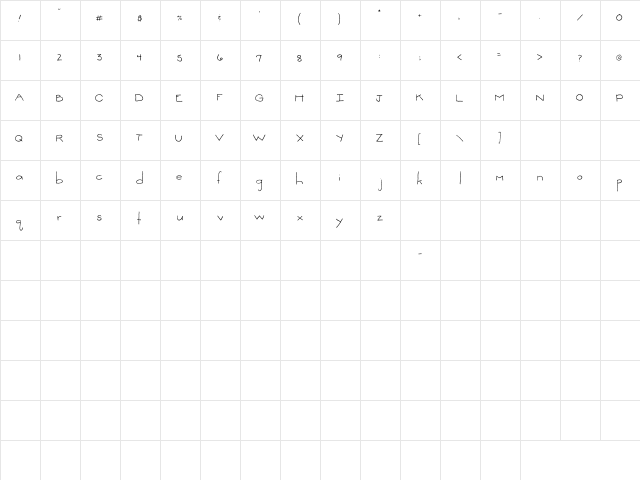
2Peas Just Plain Little 2Peas Just Plain Little Font Preview
2Peas Just Plain Little 2Peas Just Plain Little
2Peas Just Plain Little 2Peas Just Plain Little Font Details
| Style | 2Peas Just Plain Little |
| Foundry | Two Peas in a Bucket |
| Designer | designed by Melissa Baxter |
Design Context for 2Peas Just Plain Little Typeface
2Peas Just Plain Little is a composed and adaptable typeface that performs quietly and consistently across a wide range of design contexts.